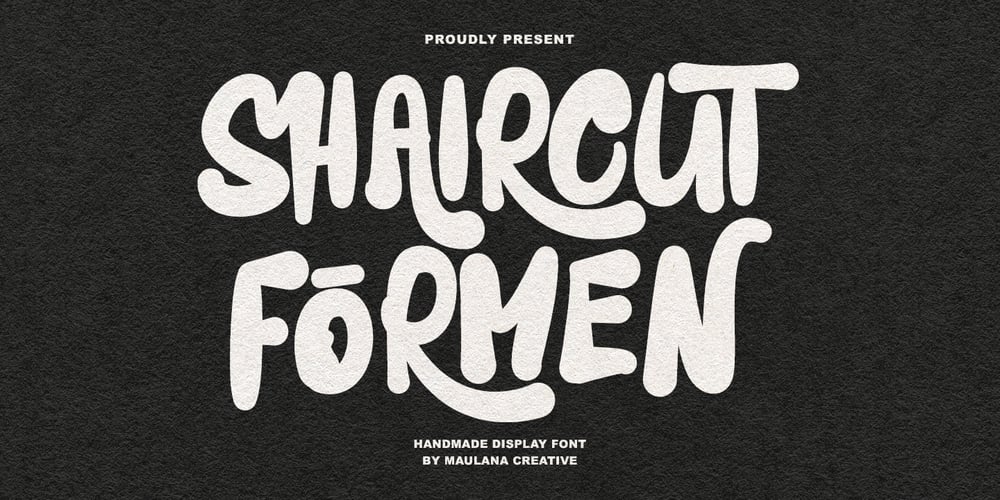
Shaircut Forman Font Family was designed by Gilang Maulana and published by Maulana Creative. Shaircut Forman contains 1 styles and family package options. Shaircut Forman handmade display font, fun character with a bit of ligatures. To give you an extra creative work. Shaircut Forman handmade display font support multilingual more than 100+ language.-UppercaseMany Thanks,Maulana Creative